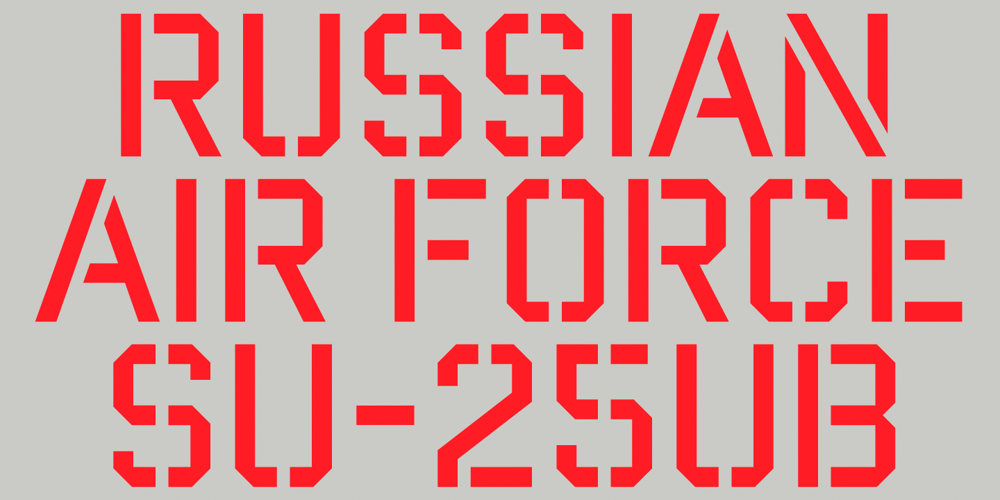
Reload Stencil Font Family was designed by Michael Jarboe and published by Reserves. Reload Stencil contains 4 styles and family package options. Reload Stencil is a rectangular industrial geometric stencil typeface available in four flexible and distinct weights. Features include: Slashed zero Romanian s accent language feature Extended language support *Requires an application with OpenType and/or Unicode support.